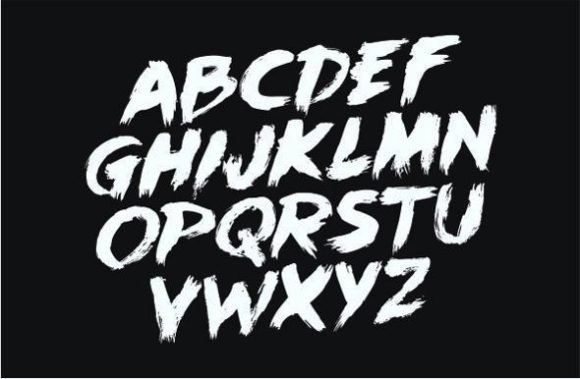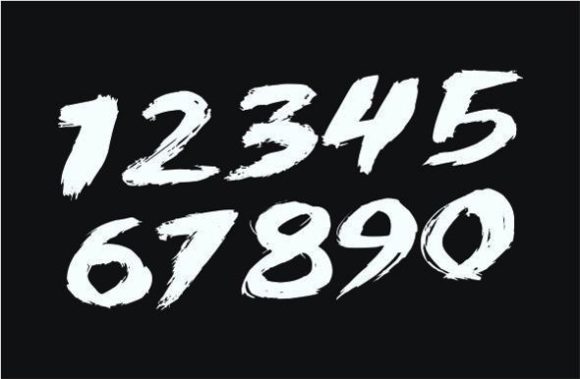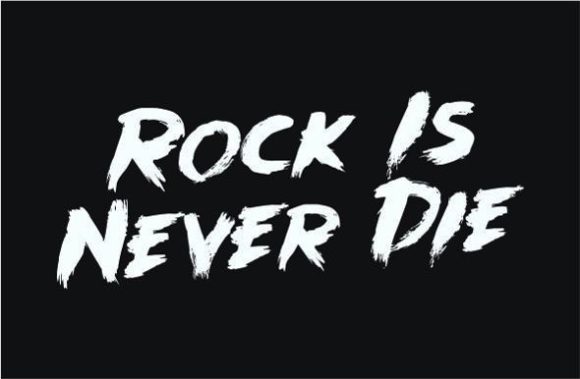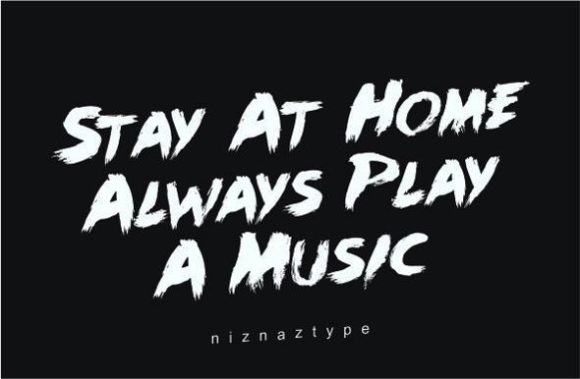
Introduction to Goresbrush Font
Have you ever stared at a blank canvas, waiting for that perfect spark to ignite your creative project? The moment it hits you – a burst of color, a unique shape, or an unexpected combination – is pure magic. For designers like you, these eureka moments are the key to bringing your vision to life.
Introducing the Goresbrush Font, a bold and eye-catching display font designed to make each of your creative ideas stand out. Whether you’re working on a digital project or a print design, this high-quality font is the perfect addition to elevate your work. With its transparent background and versatile style, the Goresbrush Font is a valuable resource for designers looking to add a touch of sophistication to their designs.
Key Features of Goresbrush Font
- Unique, hand-drawn design ideal for creative projects and artistic expressions.
- Features a transparent background, allowing for seamless integration into designs with complex backgrounds.
- High-quality font with precise lines and subtle texture, perfect for designers seeking a distinctive look.
- Perfect as a design resource for digital and print projects, from branding and advertising to editorial and publishing.
Honest Review: Goresbrush Font
As a designer, I’m always on the lookout for high-quality design resources that can elevate my creative projects. The Goresbrush Font has been a recent addition to my design arsenal, and I must say it’s been a game-changer.
- ✨ Unique and creative design style that adds a touch of whimsy to any project
- ✨ High-quality font that’s perfect for both digital and print projects
- ✨ Transparent background option allows for easy customization and layering
- ⚠️ Limited font weights and styles available, which may limit its versatility
- ⚠️ Some characters may not be supported in certain languages, which could be a concern for international designers
Overall, I’m impressed with the Goresbrush Font and would definitely recommend it to fellow designers. Its unique design style and high-quality rendering make it a valuable addition to any design resource collection.
For the most out of the Goresbrush Font, use it for titles, headings, and other prominent text elements. It’s also suitable for creating custom logos or branding materials.
Alternatives to Goresbrush Font
Comparison to Goresbrush Font: While Comic Sans MS has a more casual feel, it lacks the edgy, grungy aesthetic of Goresbrush Font, making it better suited for projects that require a more lighthearted tone.